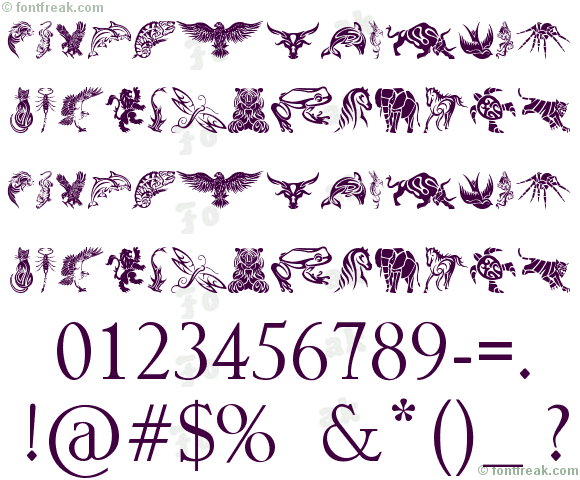
Tribal Animals Tattoo Designs
Tribal Animals Tattoo Designs by Jonathan S. Harris is a captivating decorative font that draws inspiration from the intricate art of tattoo design. This unique typeface features an array of visually striking tribal motifs, infused with animal shapes that add a bold character to any project. The font is characterized by its fluid lines and organic forms, creating a dynamic interplay of strokes that vary in weight. The overall design showcases a high level of detail, making it perfect for projects that require an artistic touch.
One of the standout features of this font is its versatility; it can be effectively used in various contexts. Ideal for tattoo studios looking to create eye-catching promotional materials, this font can also enhance the visual appeal of merchandise, such as t-shirts or posters. Additionally, it is well-suited for event invitations, particularly those themed around wildlife or tribal cultures. Graphic designers can leverage the Tribal Animals Tattoo Designs font for branding projects, giving logos a distinctive and memorable flair. Content creators will find it useful for social media graphics that aim to capture attention and convey a sense of creativity.
What sets the Tribal Animals Tattoo Designs font apart is its ability to blend artistry with functionality. Its intricate designs not only make it visually appealing but also versatile enough to suit a range of applications. Whether you're creating a captivating logo or a stunning tattoo design, this font is sure to leave a lasting impression.